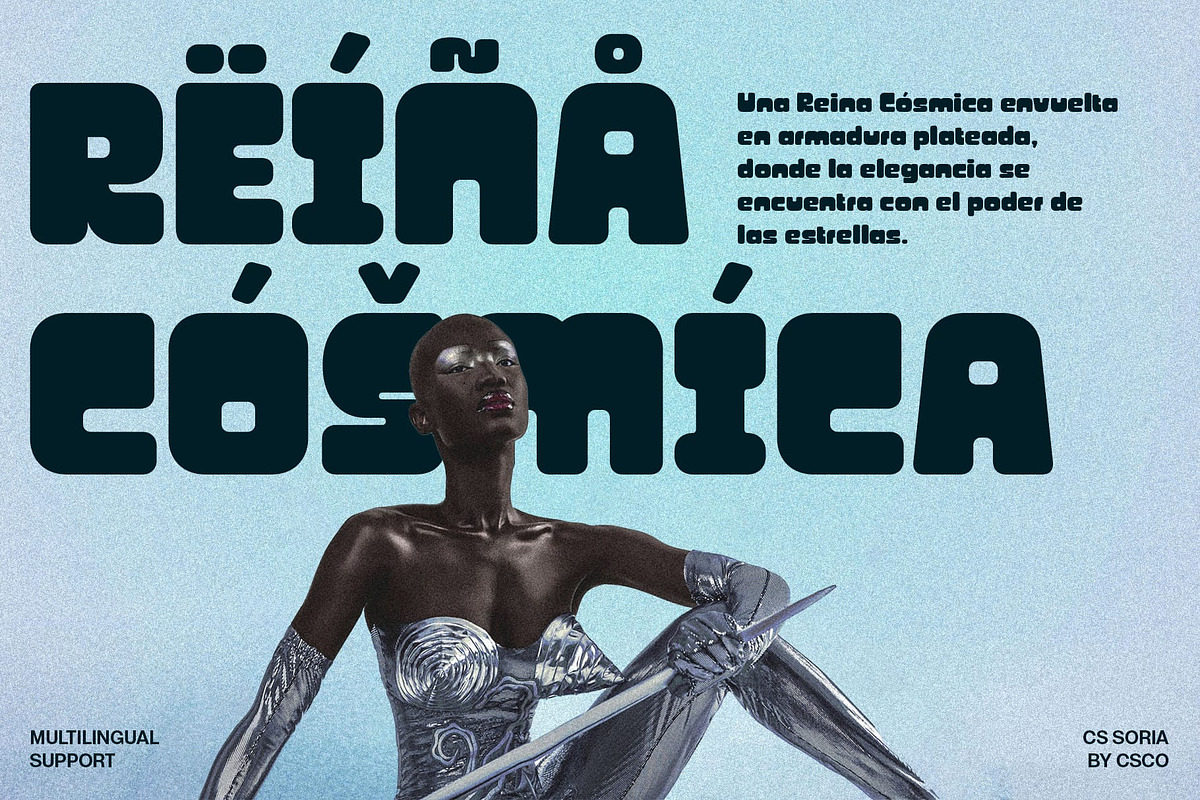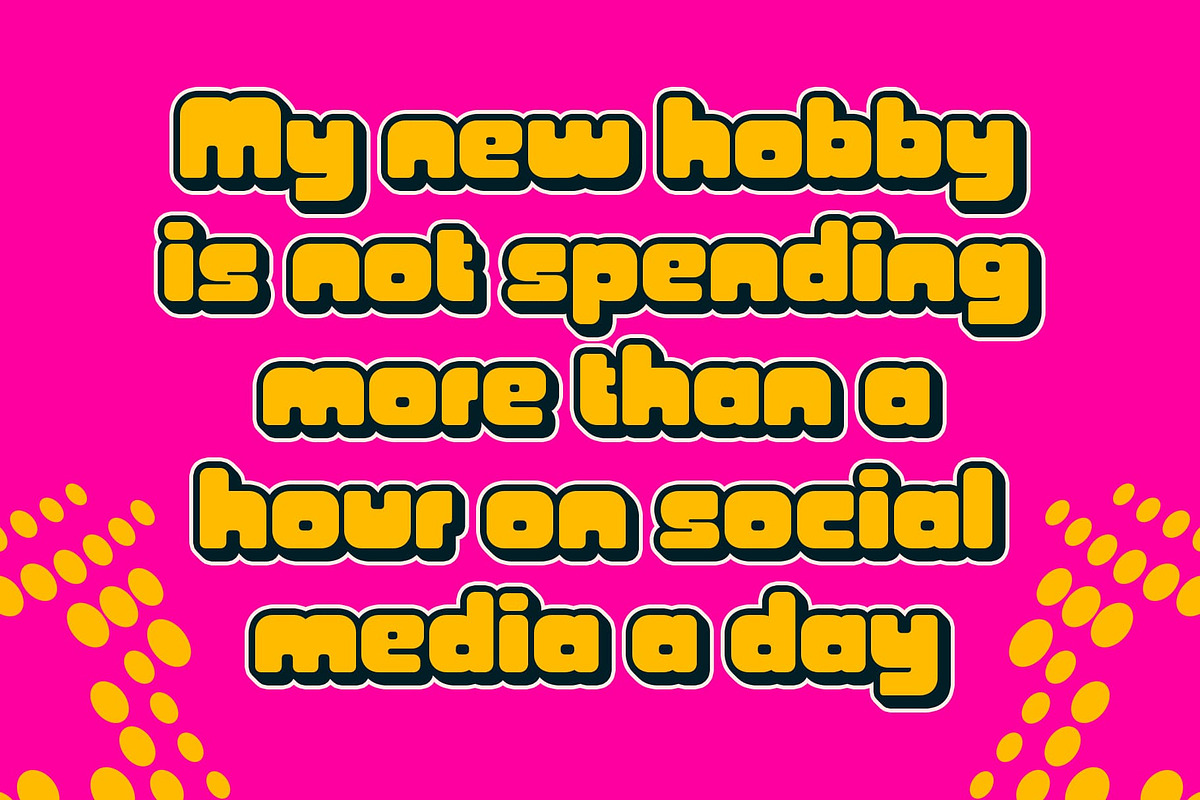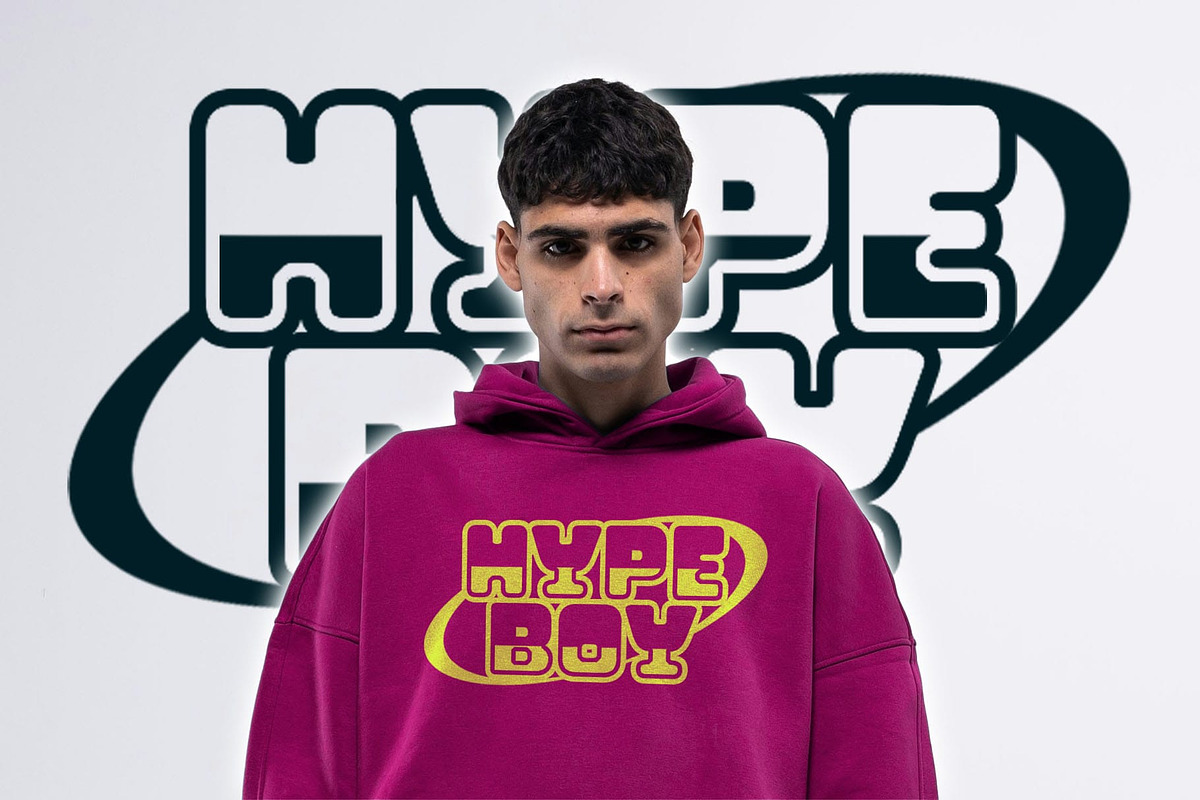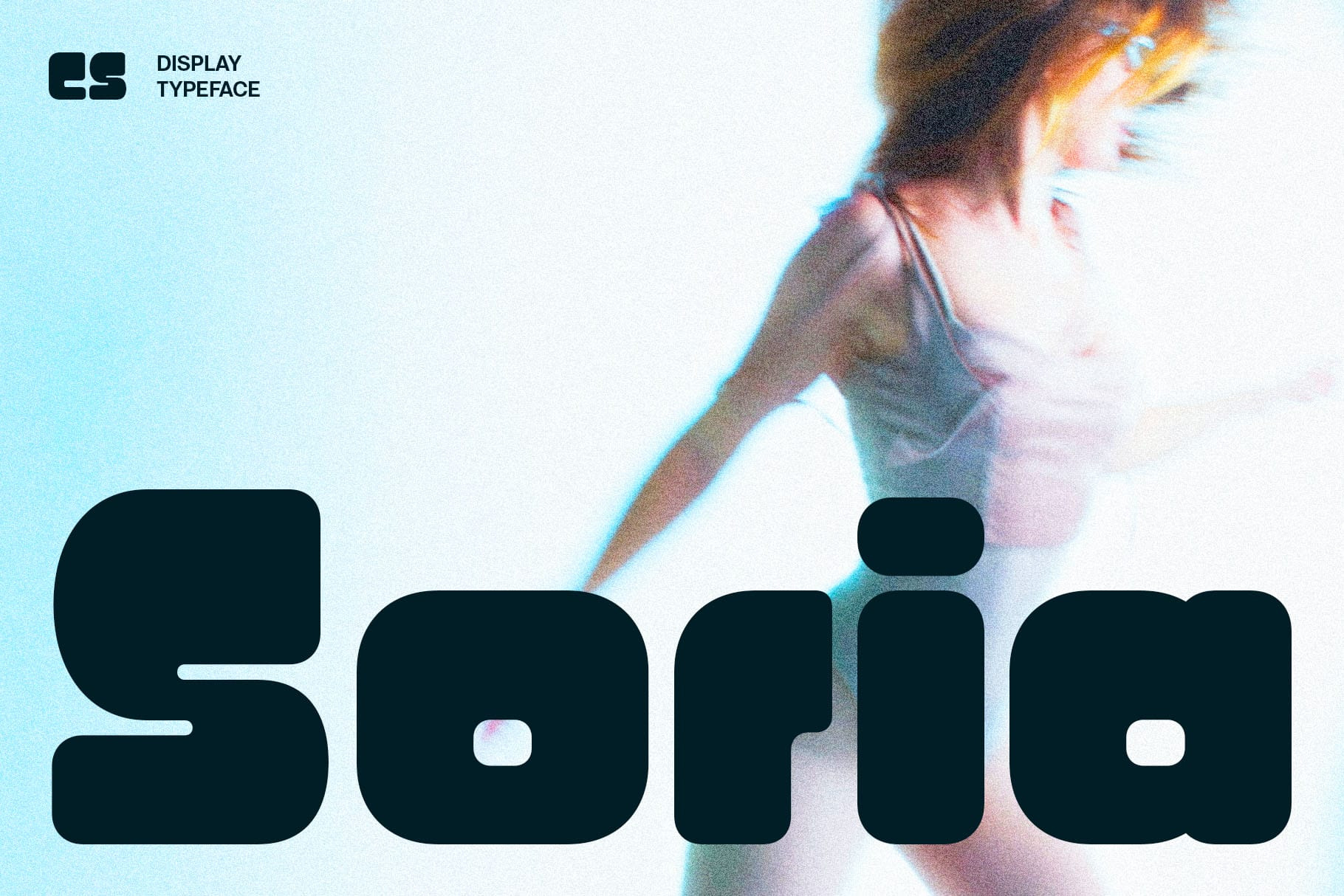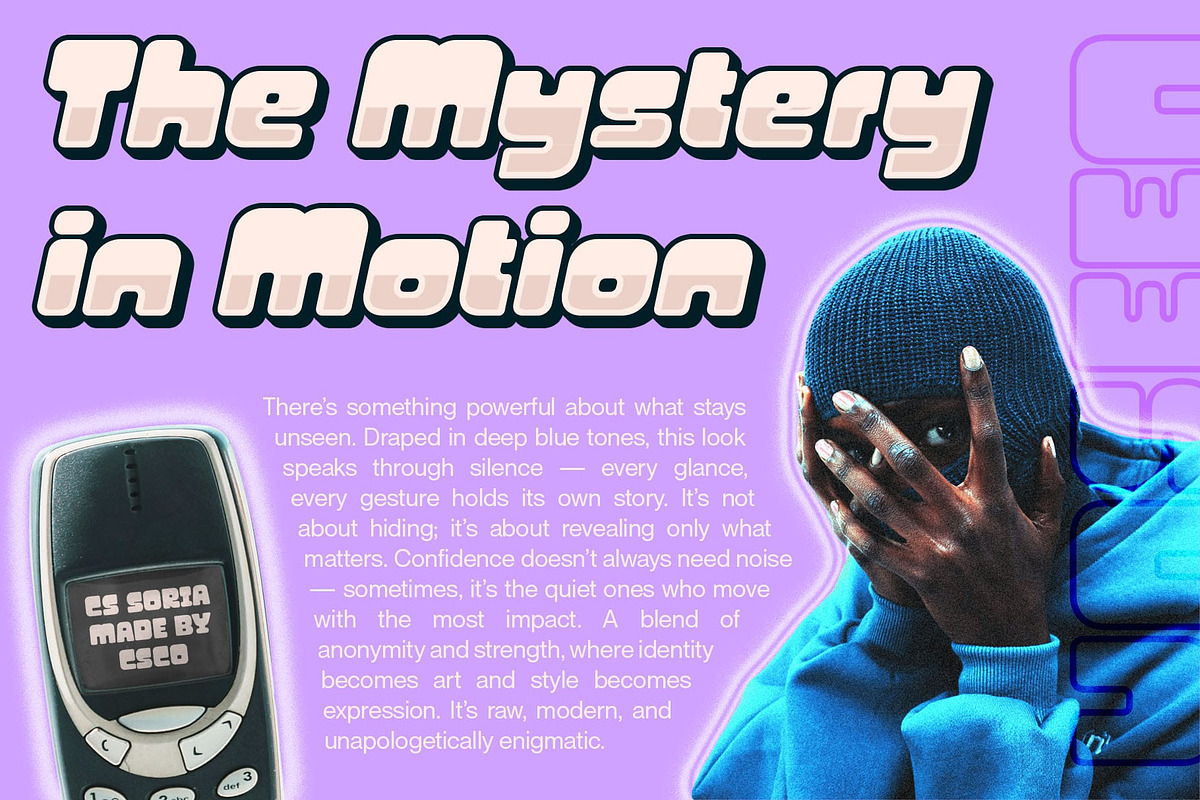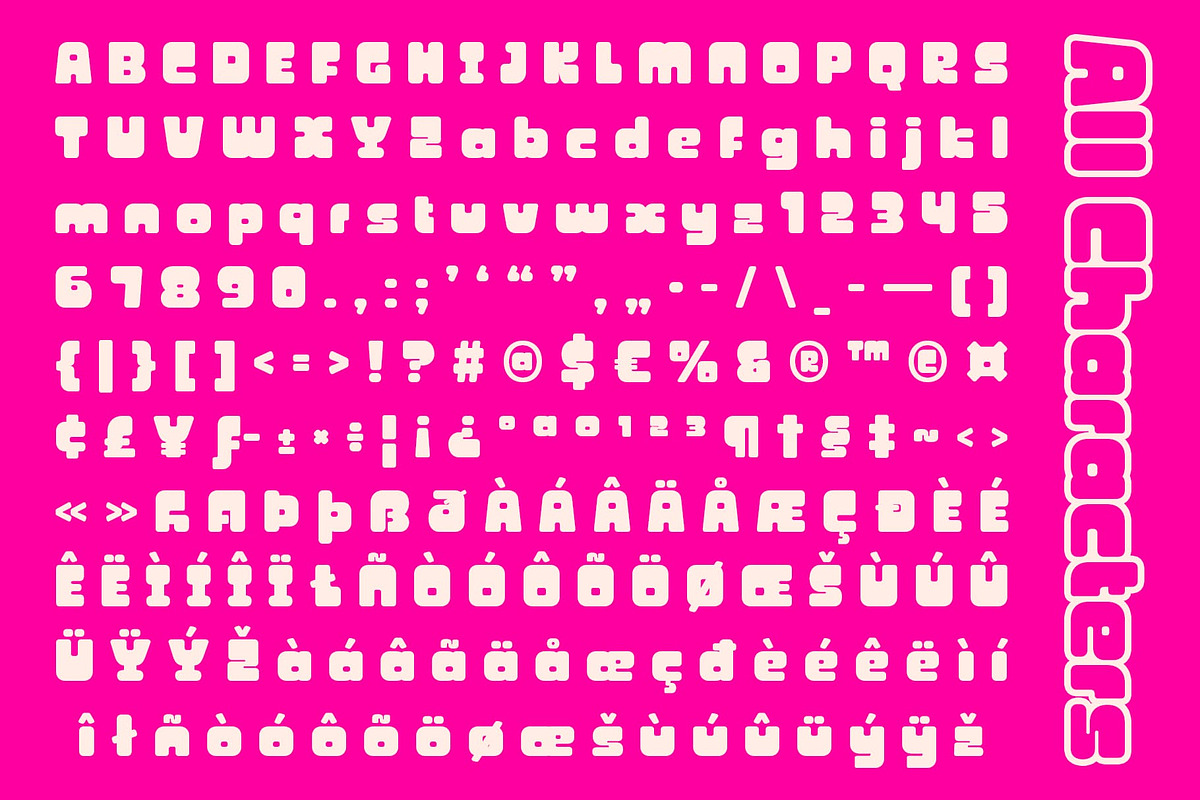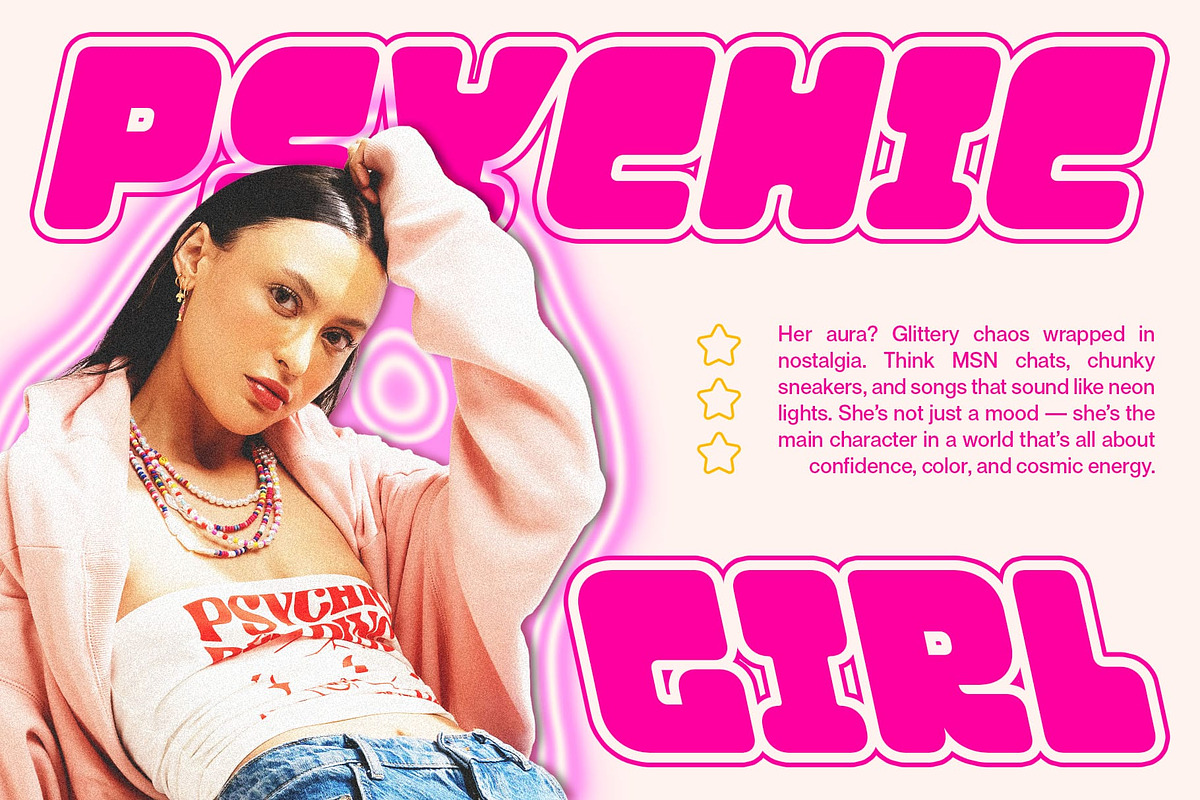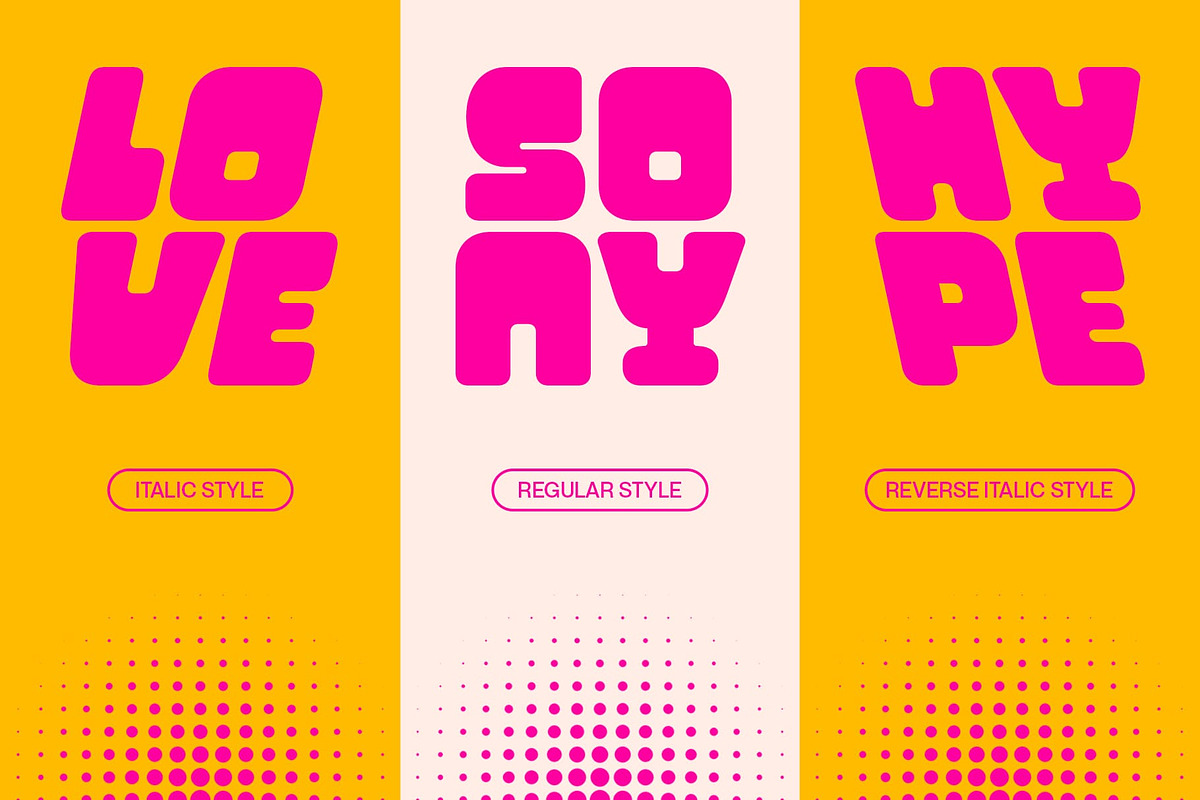
CS Soria – Y2K Font
CS Soria – Bold Y2K Style with Futuristic Flair
Y2K Display Font with Early 2000s Energy This is a bold and stylish display font inspired by the vibrant aesthetics of the early 2000s. Its thick, confident shapes and sleek design echo the futuristic optimism of the Y2K era where digital meets daring. Each character bursts with attitude, making it perfect for designs that want to capture a sense of energy, nostalgia, and modern edge.
Thick Forms for Bold Visual Impact The solid, heavy strokes of this font ensure strong visual presence in any layout. Its sculpted forms and stylish proportions command attention, bringing a dynamic feel that instantly elevates headlines, posters, and logos. The font’s balance between boldness and rhythm gives every composition a polished, tech-inspired vibe.
Futuristic Design with Playful Energy This font combines futuristic geometry with a playful Y2K charm, resulting in a font that feels both nostalgic and forward-looking. The smooth curves and sharp edges create a sense of digital motion, reflecting creativity and confidence in equal measure.
Perfect for Modern and Digital Projects Ideal for digital branding, party graphics, music visuals, and experimental layouts, delivers an energetic punch to every project. Whether you’re designing for a fashion label, event poster, or online campaign, this font brings the electric energy of the 2000s into the modern design world bold, futuristic, and unapologetically cool.